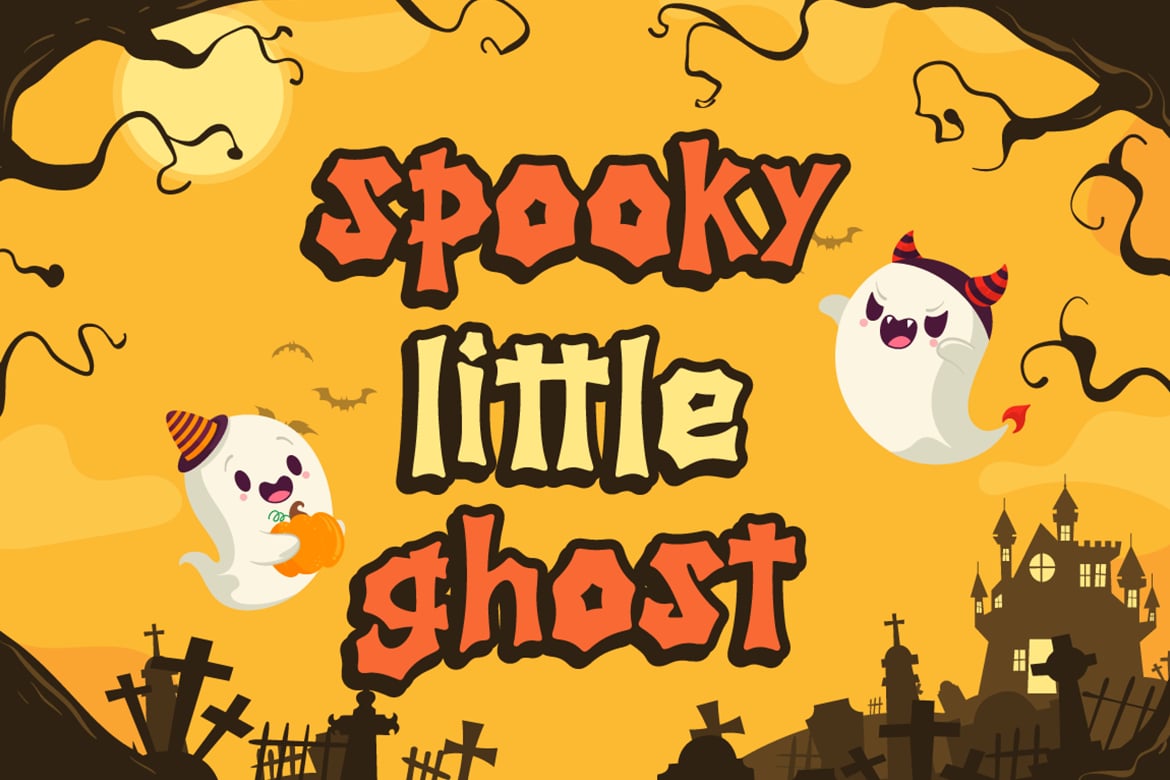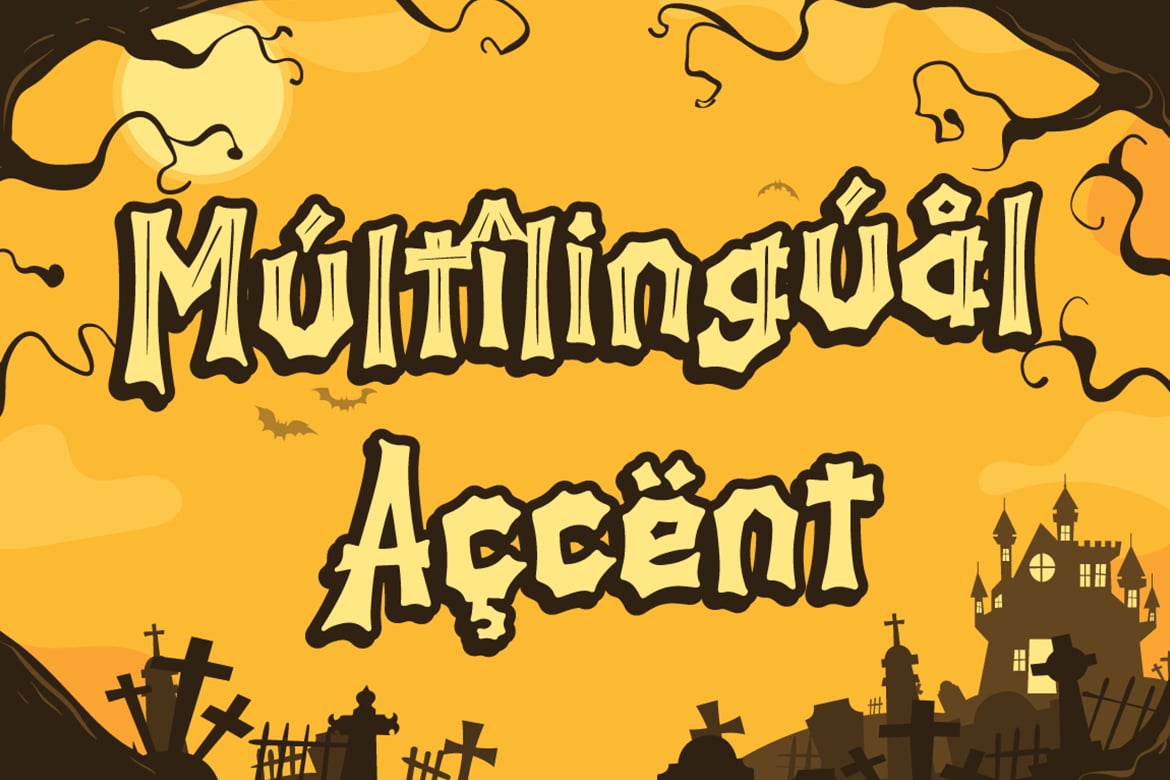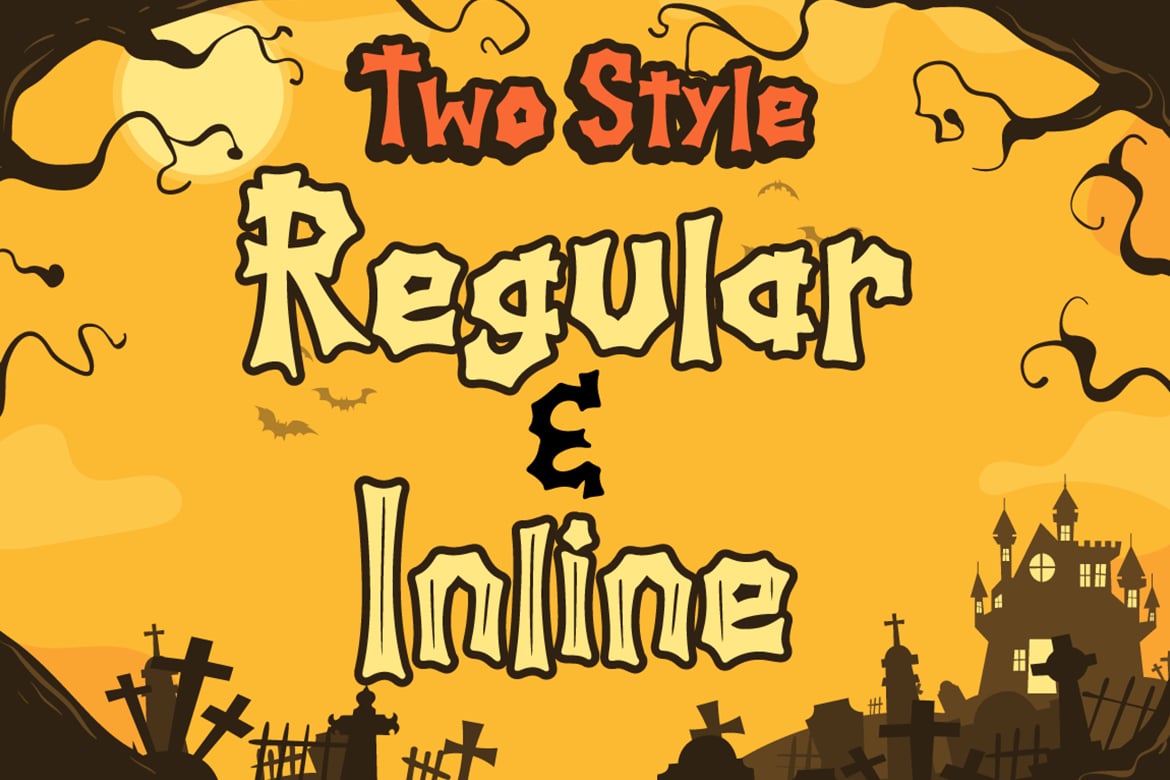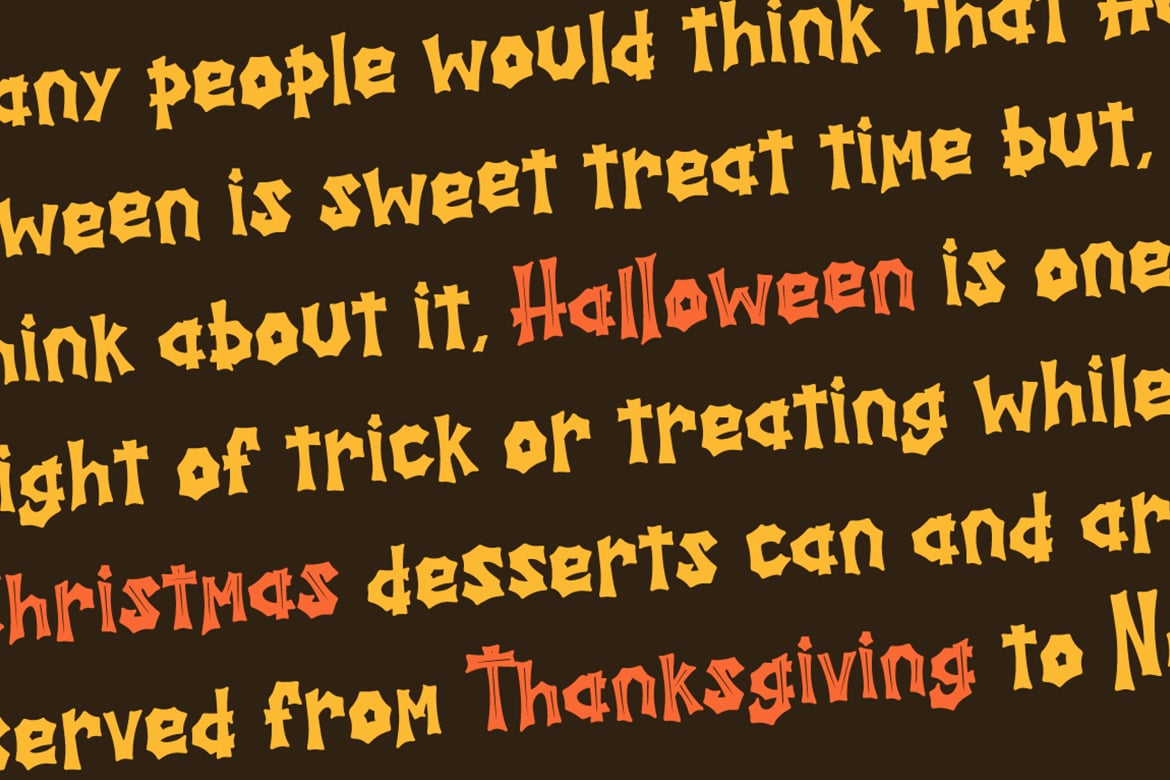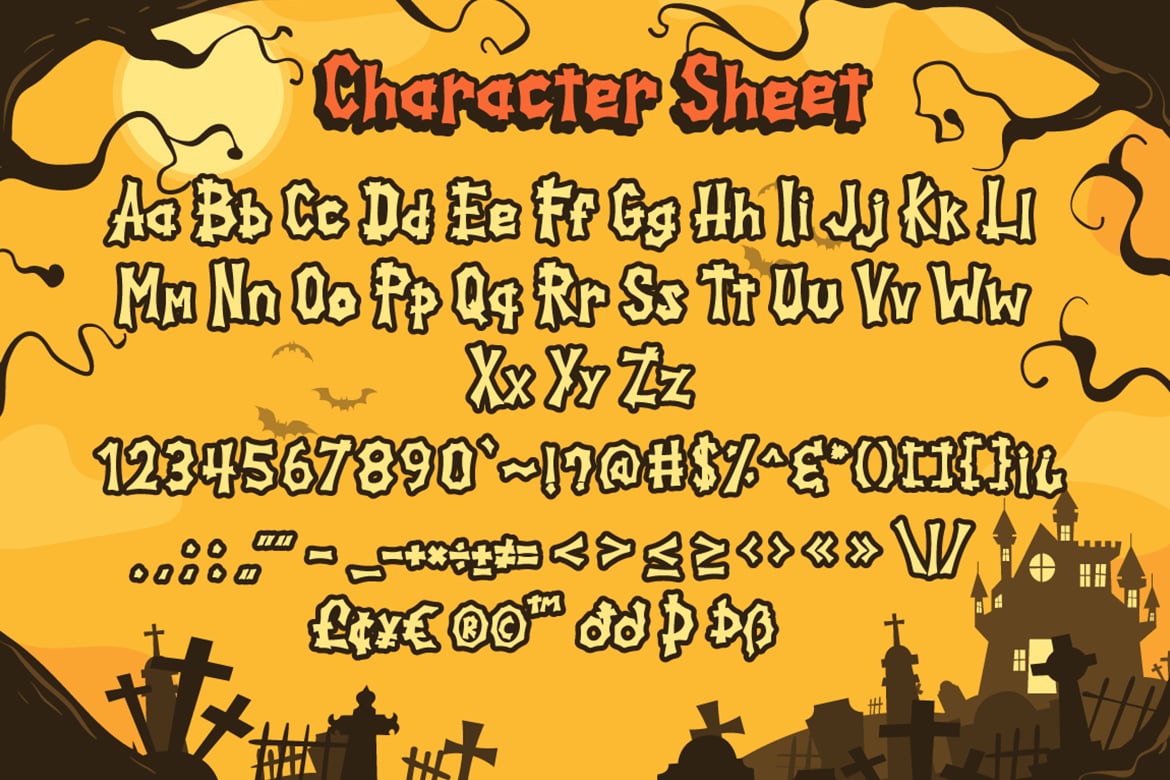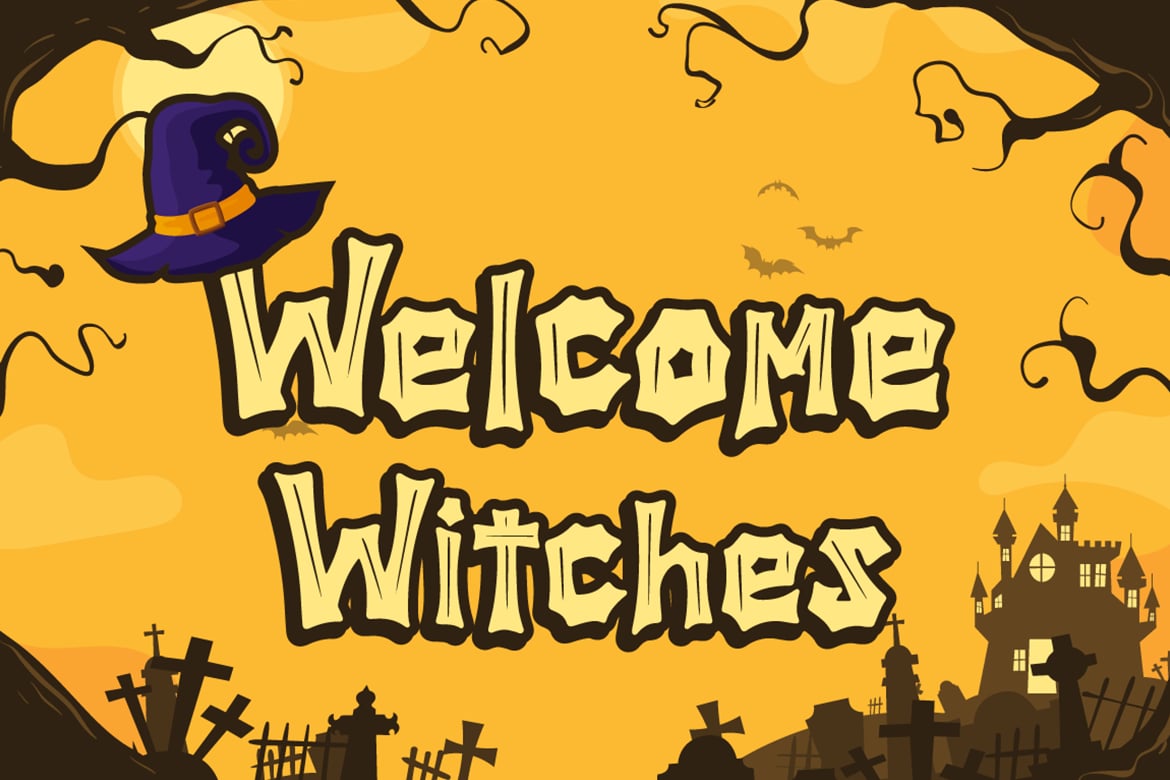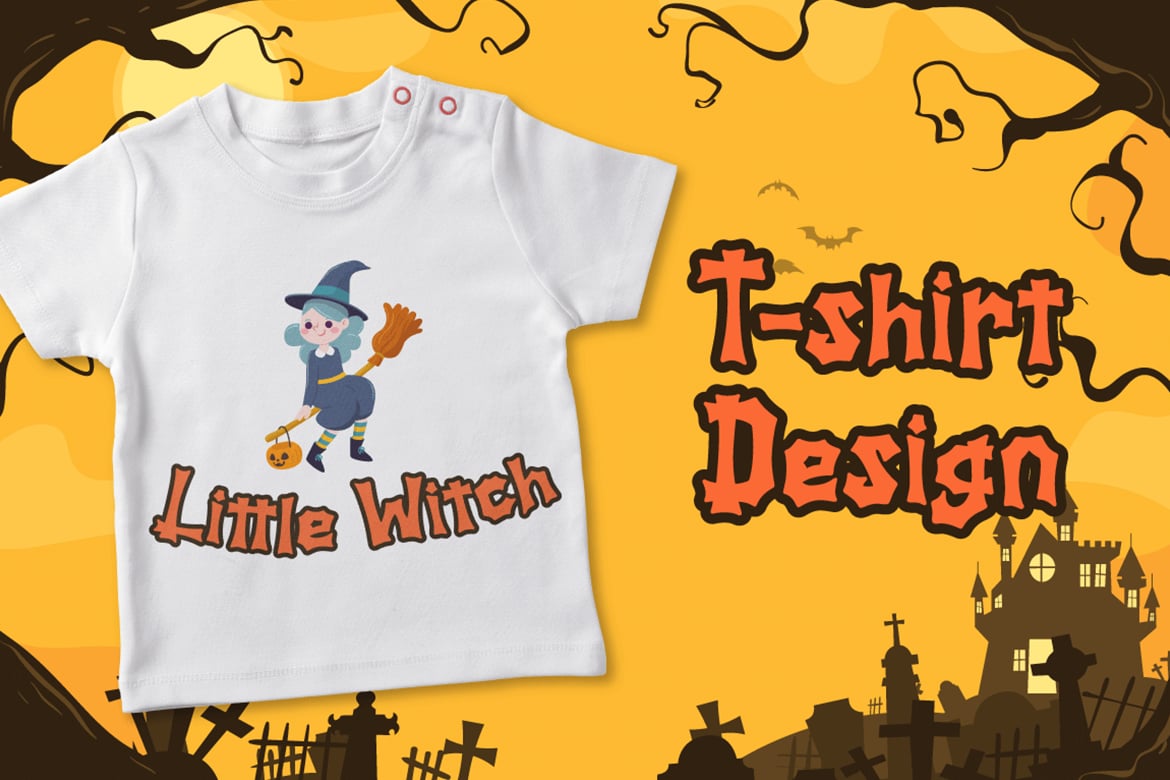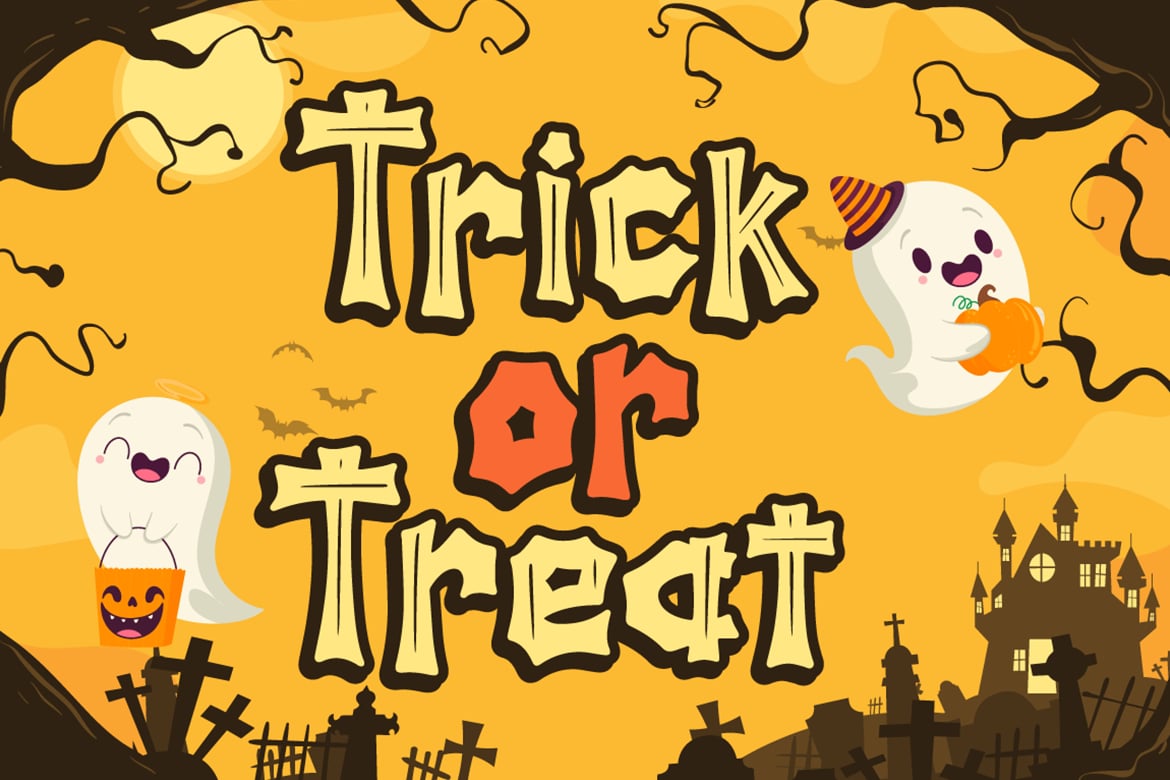
Spooky Hill – Halloween Font
Spooky Hill is Halloween display font comes with 2 style regular and inline that perfect for any halloween events and promotions.
- Multilingual Support (Afrikaans, Albanian, Catalan, Danish, Dutch, English, Estonian, Finnish, French, German, Icelandic, Italian, Norwegian, Portugese, Spanisch, Swedish, Zulu)